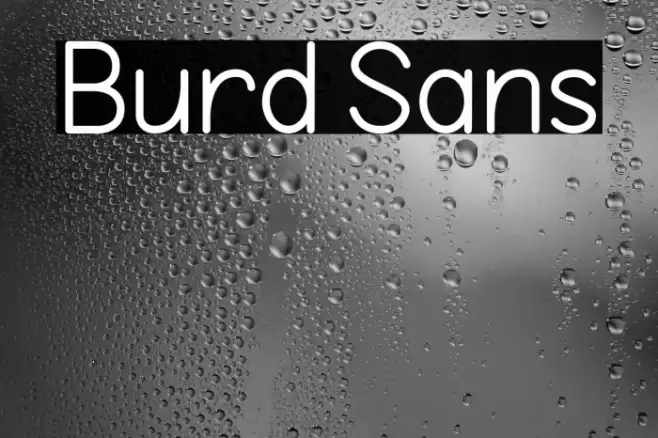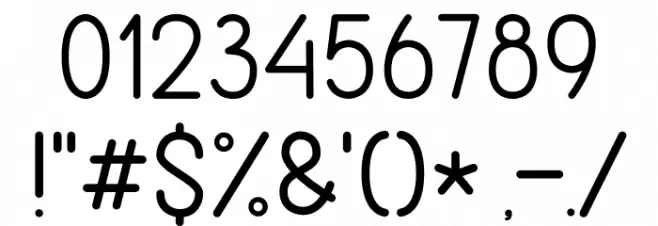
Burd Sans Font
Burd Sans Description
This font features a clean and modern sans-serif design, characterized by its rounded edges and uniform stroke width. The letters are well-proportioned, offering a harmonious balance between readability and style. The uppercase and lowercase letters maintain a consistent height, enhancing legibility. The numerals are clear and distinct, making them suitable for various applications. Special characters are designed with the same attention to detail, ensuring they blend seamlessly with the rest of the typeface. Overall, this font exudes a contemporary and approachable aesthetic, making it versatile for both digital and print media.
A modern sans-serif font with rounded edges and uniform strokes from Regular fonts.
- Proposed Projects: Ideal for branding, web design, advertising, and user interfaces.